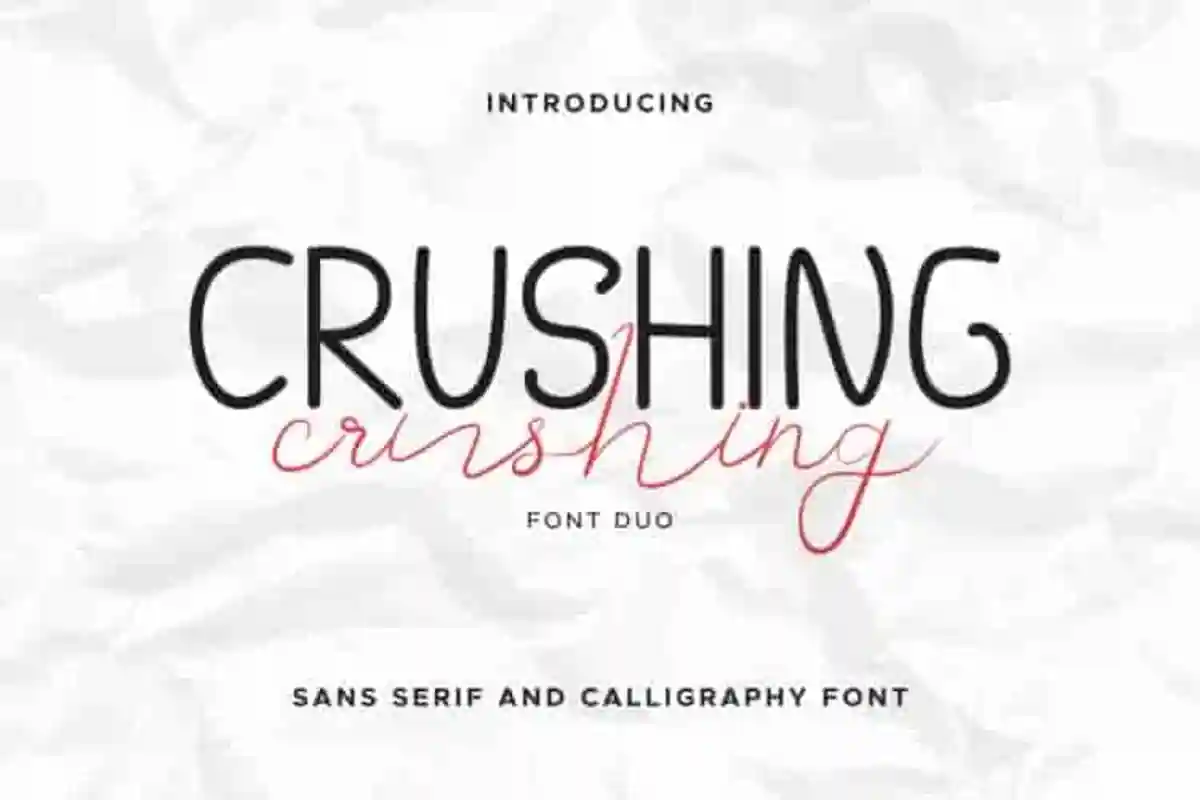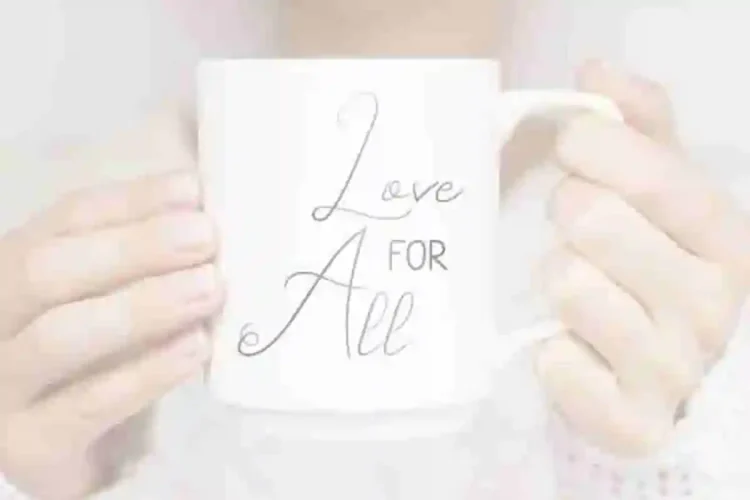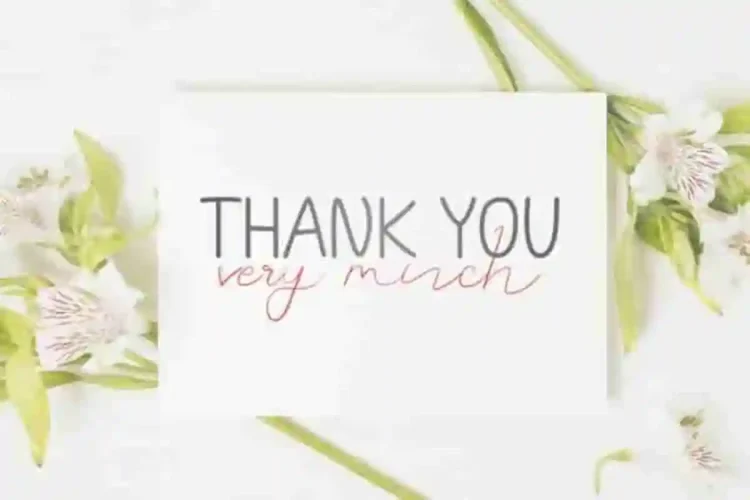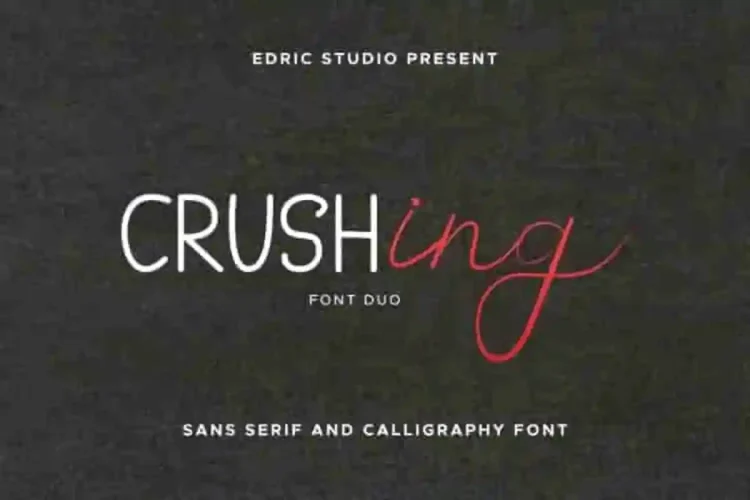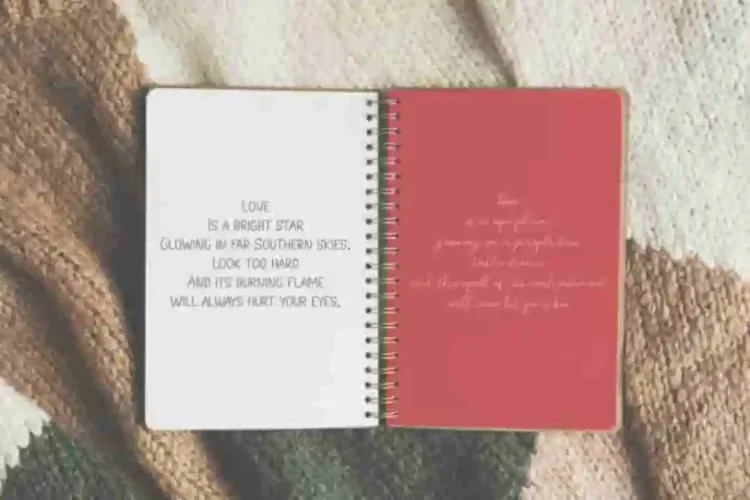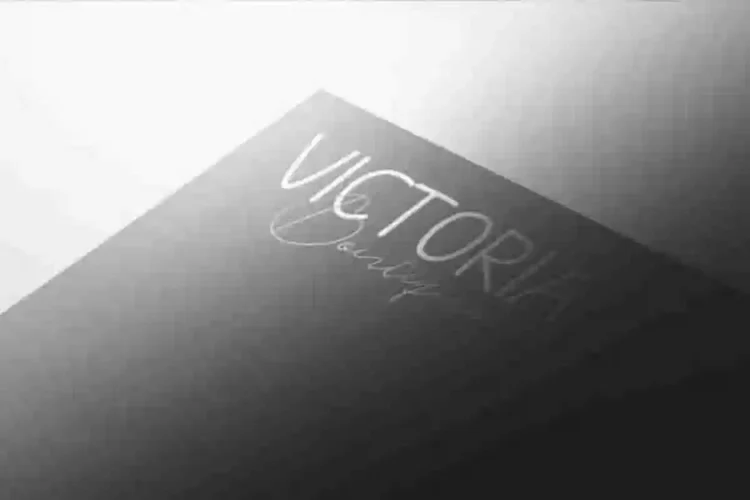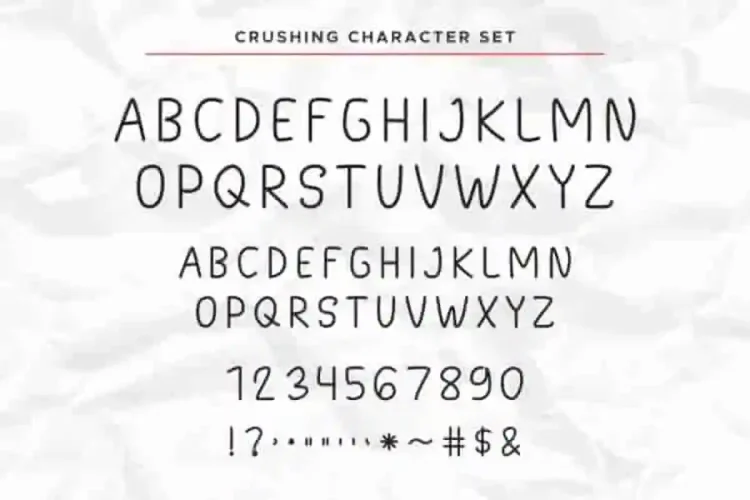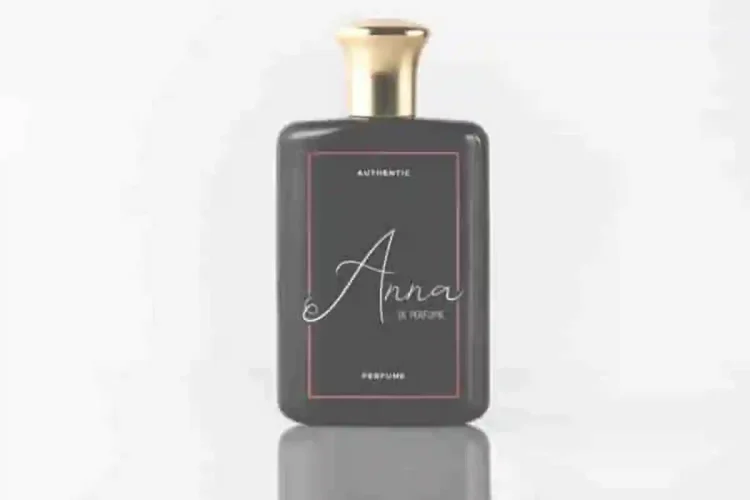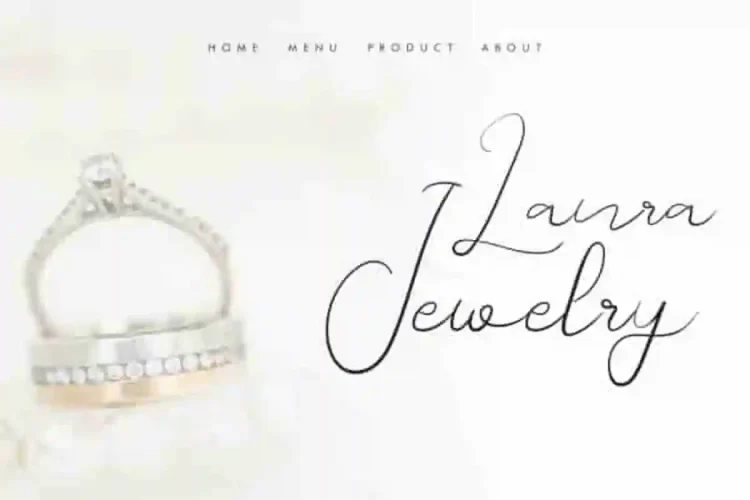
Crushing Handwritting Script Font Duo
Crushing Handwritting Script Font Duo is a font family with two different unique styles. Handcrafted with care by Edric Studio in Indonesia. The designers of these fonts are Yasri, Suci and Ali.
Crushing Font comes with two different styles : Sans Display and Handwriting script font. The Its casual, cartoon-inspired strokes add charm and personality. It has a stunning characters set, perfectly managed with well spaced and kerning.
Crushing Font Duo will be great for any projects  including : branding and logo (with extended license), stationery, business card, signage, flyer, brochure etc. Almost all industries will be match for this typeface: wedding, events, real estate, architect, law firm, florist, gardening, makeup artist, travel, hotel, musician etc.